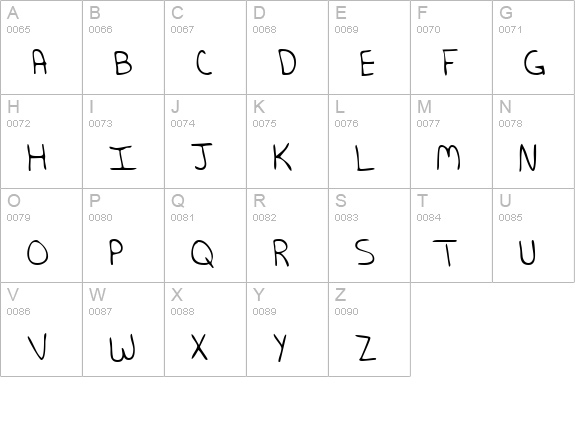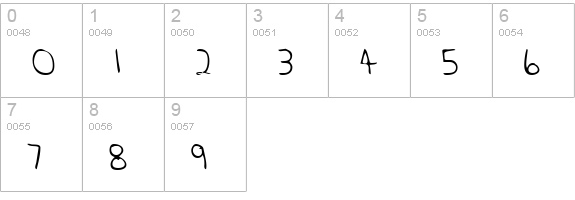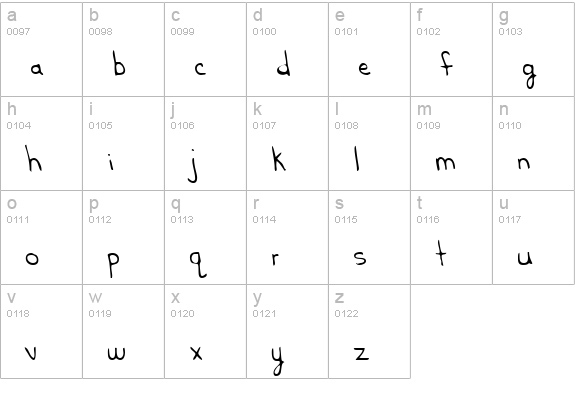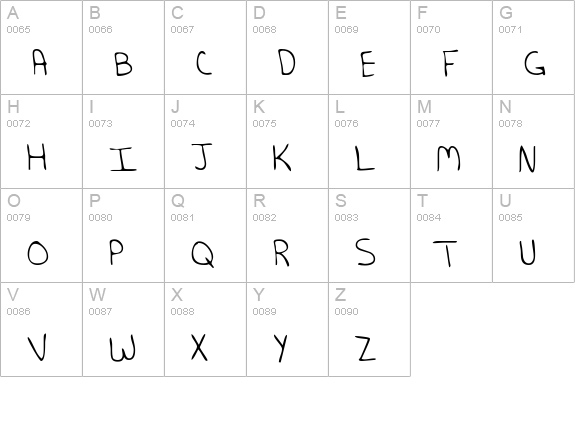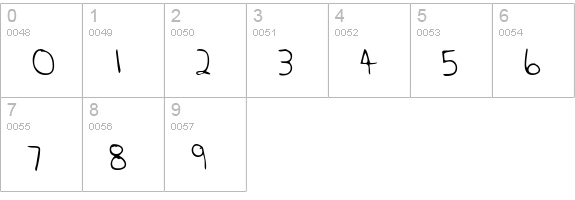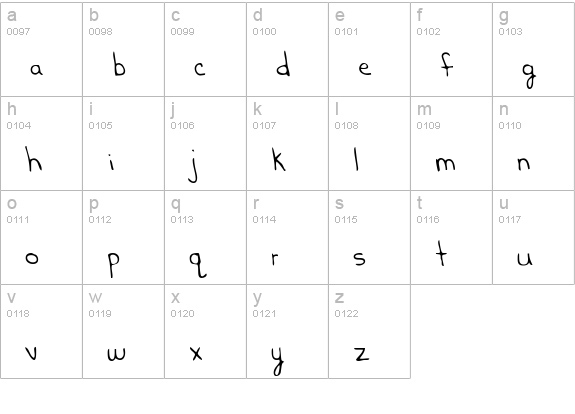
MorgansHand Regular is the standard, neutral variant in the MorgansHand typeface family \xE2\x80\x94 well suited to general body text, paragraphs, and standard typographic work.
MorgansHand Regular font is a charming and versatile typeface that exudes elegance and sophistication. With its smooth lines and flowing curves, this font is perfect for adding a touch of class to any design project. Whether you're creating invitations, logos, or branding materials, MorgansHand Regular font will elevate your work to the next level. Best of all, MorgansHand Regular font is available for free download at FontsMarket.com. This means you can start using this exquisite font in your projects without any cost. Don't miss out on this opportunity to enhance your designs with the timeless beauty of MorgansHand Regular font. Download it today and let your creativity shine!